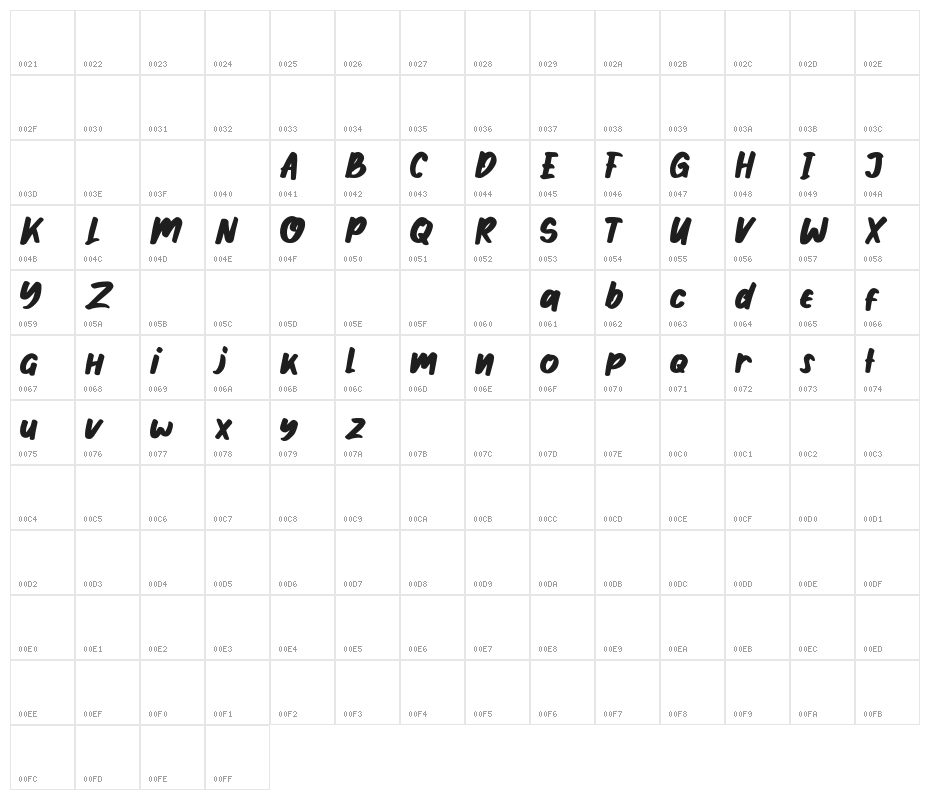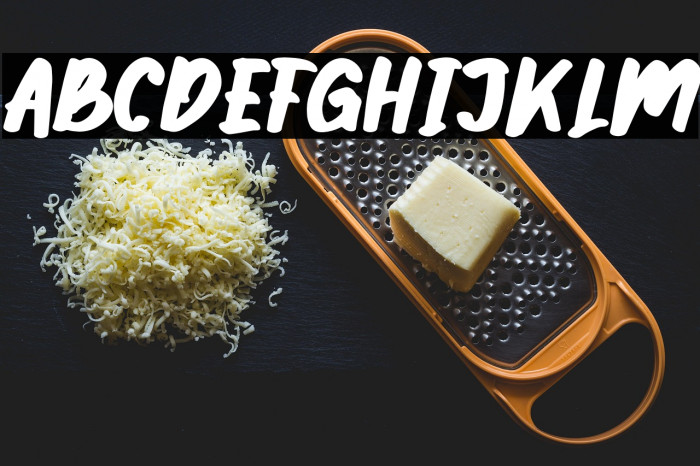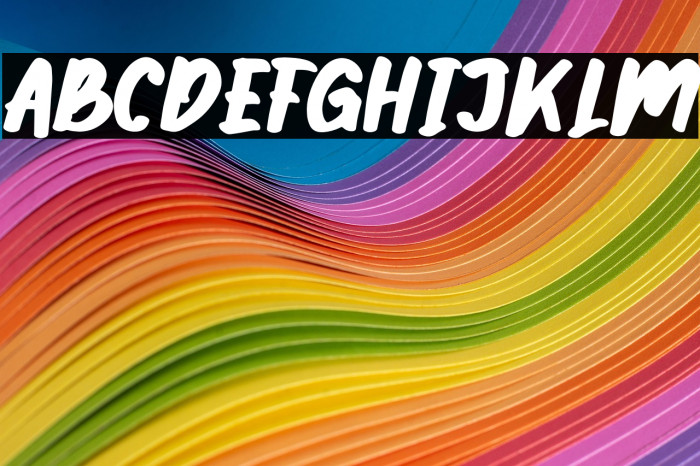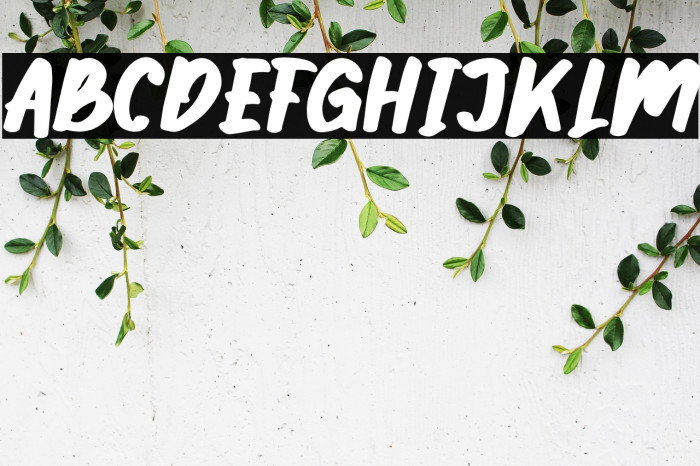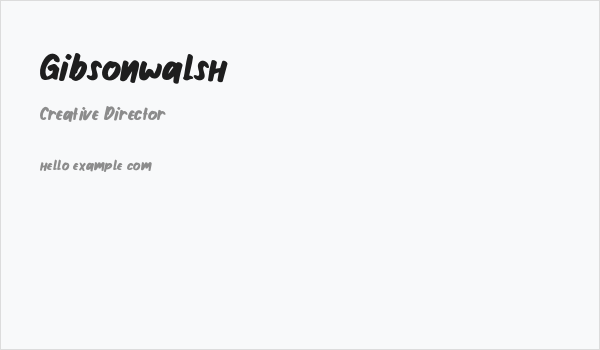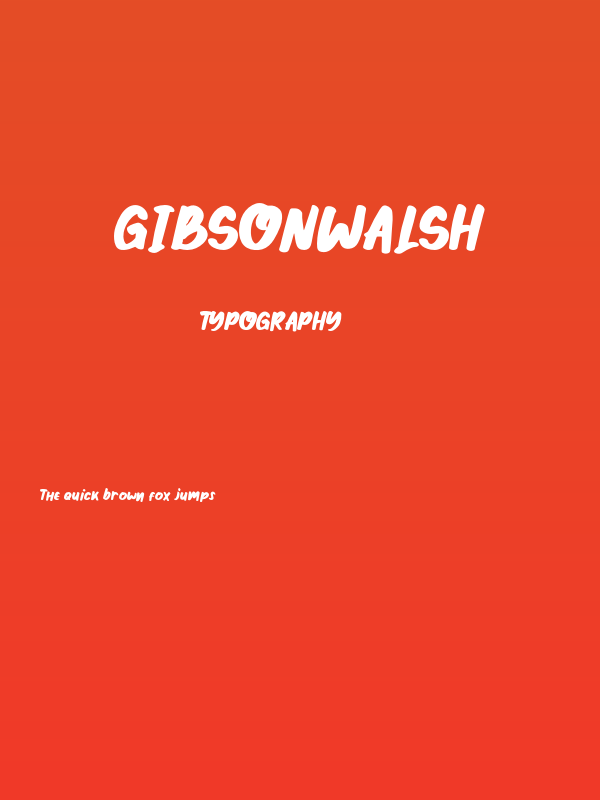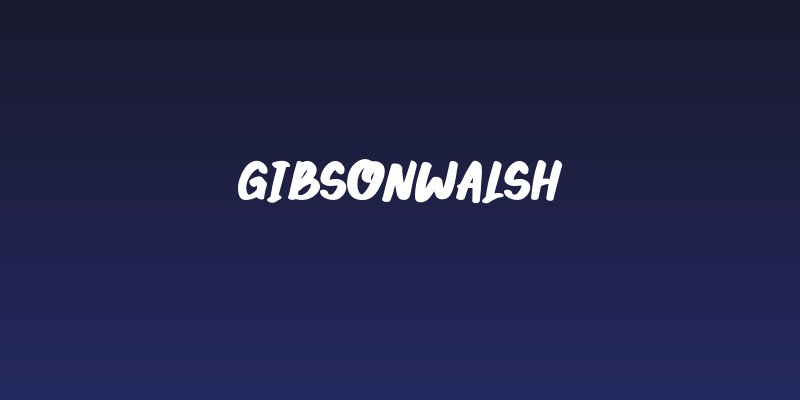
Gibsonwalsh Font
Gibsonwalsh Description
This font features a bold and energetic style with a handwritten appearance. The characters are thick and rounded, giving a playful and informal vibe. The strokes are consistent in weight, contributing to a cohesive look across all letters. The uppercase and lowercase letters maintain a uniform style, with slight variations that add to the handwritten feel. The font's overall appearance is dynamic and lively, making it suitable for designs that require a personal touch. The spacing between characters is relatively tight, enhancing the compact and bold nature of the font.
Overall StylePlayful
Use CaseLogos, Headlines, Informal Text
Proposed ProjectsIdeal for greeting cards, playful branding, children's books, and casual invitations.